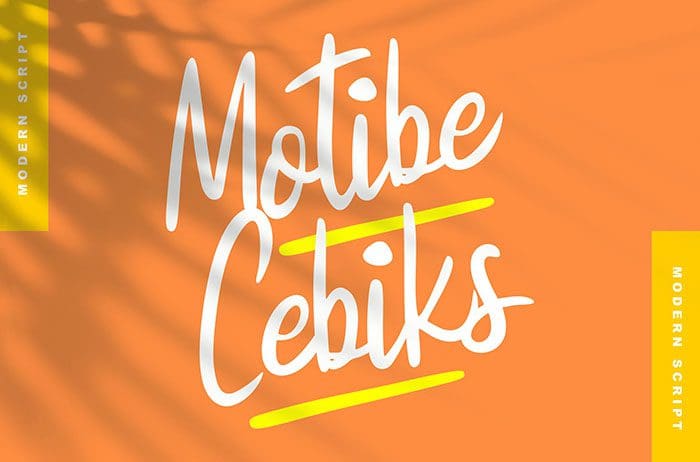
Motibe Cebiks Script Font
Motibe Cebiks is a sweet and flowing script font. Perfect for quotes, greeting cards, logos, business cards, and many more. Thanks to Vunira Studio for sharing this font! Take a look at this portfolio for more of his stunning fonts.